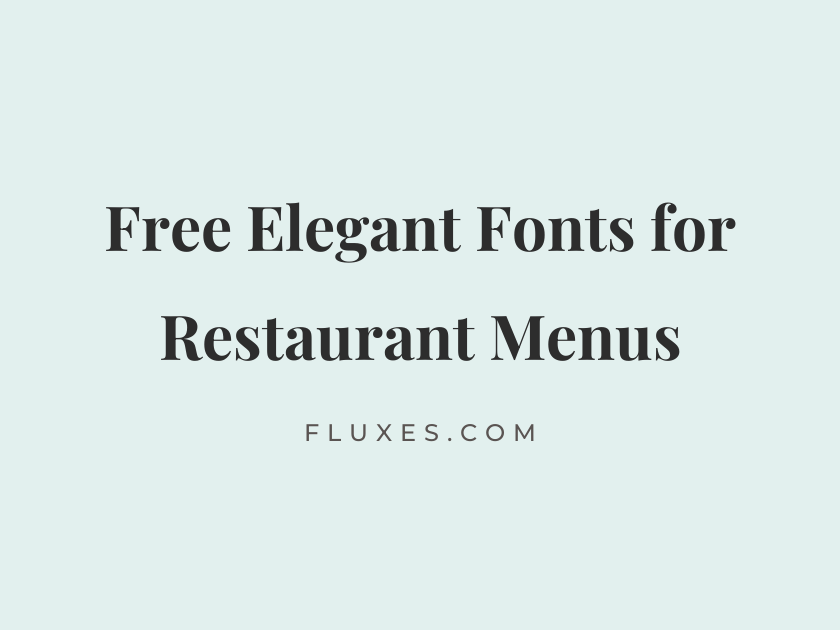
64 Best Free Elegant Fonts for Restaurant Menus
A menu is often the first tangible piece of design a guest holds in a restaurant, and the typeface carries as much weight as the plating description beside it. Elegant fonts signal care, whether that means a hushed fine-dining room with a tasting menu or a neighborhood bistro leaning on handwritten charm. The right free elegant font, sourced from Google Fonts, can suggest old-world craft, modern minimalism, or romantic script without costing a cent of your printing or web budget.
Below is a wide-ranging survey of serif, script, slab, and sans options that hold up beautifully on printed menus, chalkboards, and restaurant websites alike, chosen for how they read at menu sizes and how they photograph on a table.
1. Playfair Display
Few free serifs say “fine dining” as immediately as Playfair Display. Its high-contrast strokes and dramatic thins and thicks give restaurant names and menu headers real theatrical presence.
It’s best reserved for titles and section heads rather than long descriptions, since the delicate hairlines can thin out at small sizes. Pair it with a plainer serif or sans for the body copy and it instantly reads upscale.
2. Cormorant Garamond
Cormorant Garamond takes the classic Garamond model and stretches it into something taller, lighter, and more romantic. The letterforms feel handset, almost like an engraved wine list from a century-old cellar.
It works wonderfully at larger display sizes for section headers or pull quotes about provenance and ingredients. At very small body text it can feel a touch too refined, so keep it for anything above menu-item-name scale.
3. EB Garamond
This is the workhorse elegant serif of the free font world, a faithful digitization of Claude Garamond’s Renaissance letterforms. It reads comfortably in long menu copy, which makes it a smart choice for wordier descriptions of dishes and tasting notes.
Because it’s understated rather than showy, EB Garamond pairs naturally with a bolder display face for restaurant names, letting each typeface do a distinct job.
4. Libre Baskerville
Sturdier and more upright than most Garamond-style faces, Libre Baskerville was actually optimized for screen reading, which makes it a dependable pick for a restaurant’s online menu page as well as print.
5. Prata
Prata has a formal, ceremonial quality, with wide serifs and generous proportions that suit menu covers and restaurant logotypes needing a sense of occasion.
6. Marcellus
Marcellus carries a cool, classical restraint, its capitals evoking stone-carved Roman inscriptions. It suits Mediterranean, Greek, or Italian restaurants aiming for an heirloom, timeless look rather than anything trendy.
7. Cardo
Designed with scholarly texts in mind, Cardo has an old-book warmth that flatters descriptions of bread, cheese, and slow-cooked dishes. Its true-to-form italics are worth using for specials or chef’s notes.
8. Crimson Pro
Crimson Pro is a quieter cousin to Garamond-style serifs, tidy and legible at small sizes, which makes it a practical choice for dense menus with many line items and prices.
9. Lora
Lora has just enough calligraphic curve to feel warm without tipping into decorative territory. It’s a dependable middle-ground serif for farm-to-table concepts that want elegance without formality.
10. Frank Ruhl Libre
Originally cut for Hebrew typesetting, Frank Ruhl Libre has since become a favorite editorial serif with dense, ink-trap detailing that gives it a slightly bookish, literary feel. It suits steakhouses and chophouses that want gravitas over daintiness.
11. Spectral
Spectral was built for reading on screens, so it’s an excellent choice for a restaurant’s digital menu or online reservation page where EB Garamond or Cormorant might feel slightly too precious.
12. Bodoni Moda
Bodoni’s extreme contrast between thick and thin strokes has been the shorthand for high fashion and haute cuisine for decades, and Bodoni Moda brings that same drama into a free, variable Google Fonts package.
It’s striking on menu covers, wine list headers, and anywhere you want a jolt of glamour. Because the hairlines are so fine, avoid it for small print or anything meant to be read quickly.
Test any script or display face on the actual paper stock and lighting of the dining room before committing to a full print run.
Whether the goal is a hushed tasting-menu formality, a sun-lit café warmth, or a jazz-age cocktail bar mood, there is a free Google Fonts option here to match it. Downloading and testing a few combinations directly on a sample menu layout is the fastest way to see which pairing actually earns its place on the table.